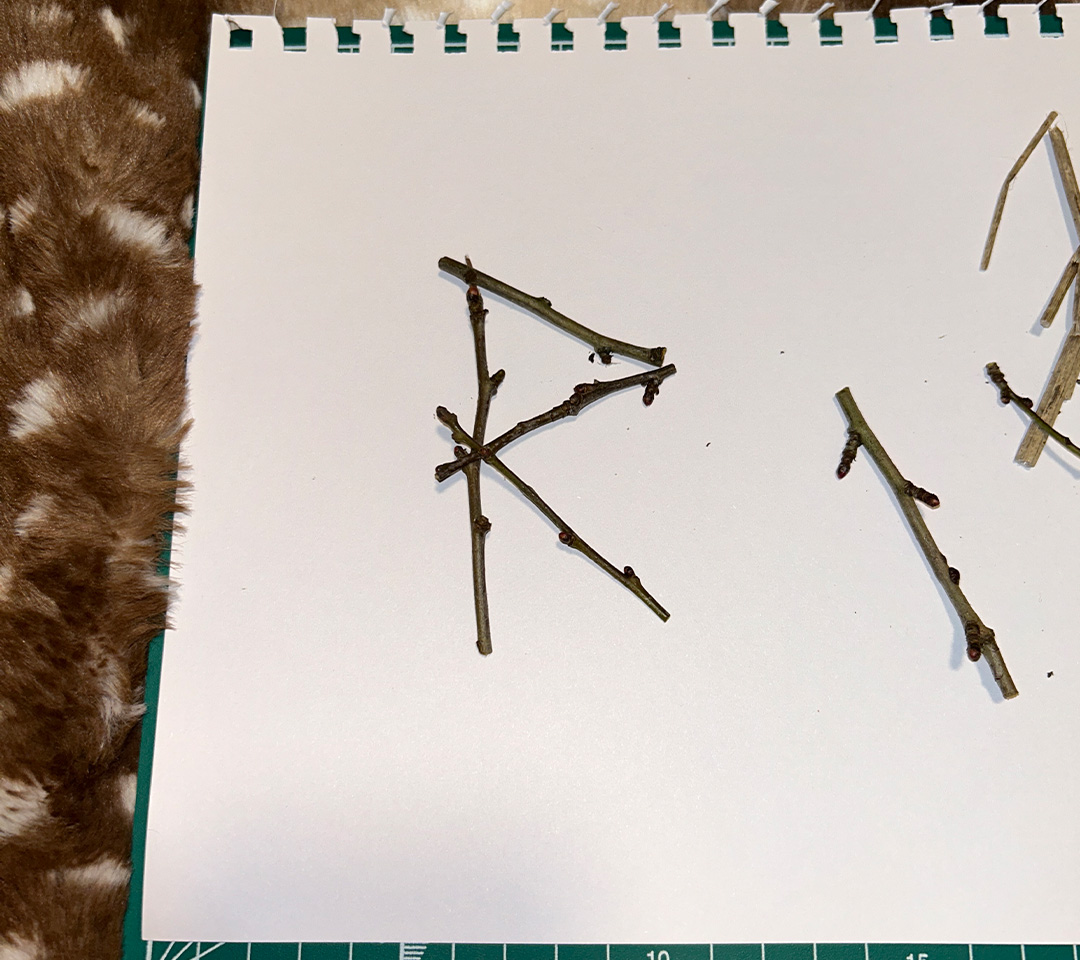
'Consumed' was designed with the intention of embodying nature and capturing the natural, tranquil side of Nunhead Cemetery. Seeing the overgrown and reclaimed nature of this site, it was clear to me to make a more personal typeface to reflect the concept of being reclaimed by the earth after death, rather than focusing on the negative, macabre aspect usually related to cemeteries. To achieve this feeling, I made 'Consumed', which is a typeface that consists of using purely natural material from Nunhead Cemetery and creating the shapes of the letters with the branches and plants. After spending hours in the peaceful atmosphere of Nunhead and creating soundscapes, then tracing the edges of the branches with a pencil and recreating the shapes within glyphs, I focused on areas I found most intriguing and next to graves I had done deep research on. I also tried to focus on collecting mostly dead plants to not affect the living plants on the Nunhead grounds.